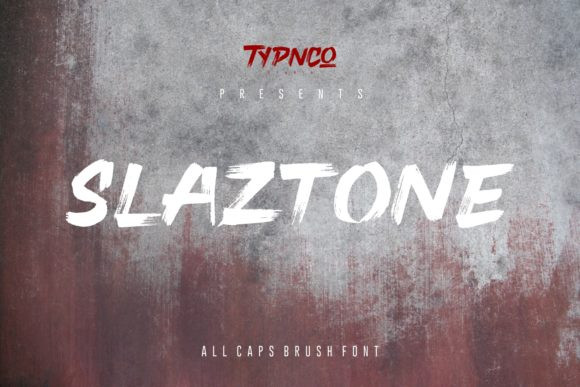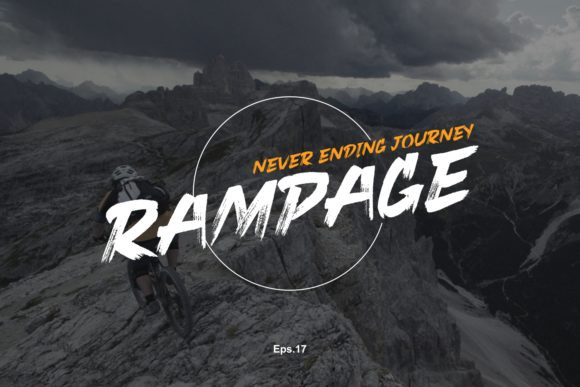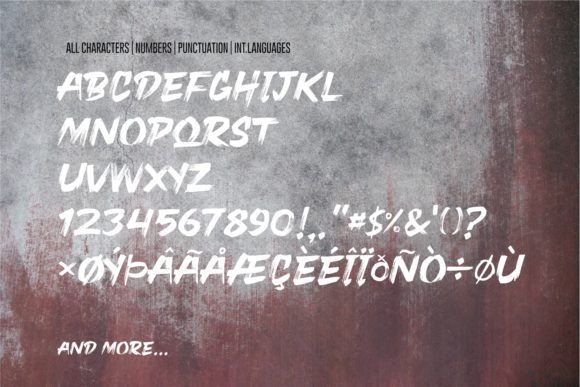
Slaztone Font
Slaztone is an all-caps display font that features an aggressive hand-drawn brush and an italicized stance. This font is perfect for your apparel, branding projects, logos, web design, posters, cards, promotions, Halloween-themed designs, T-shirts & any projects that need handwriting taste.